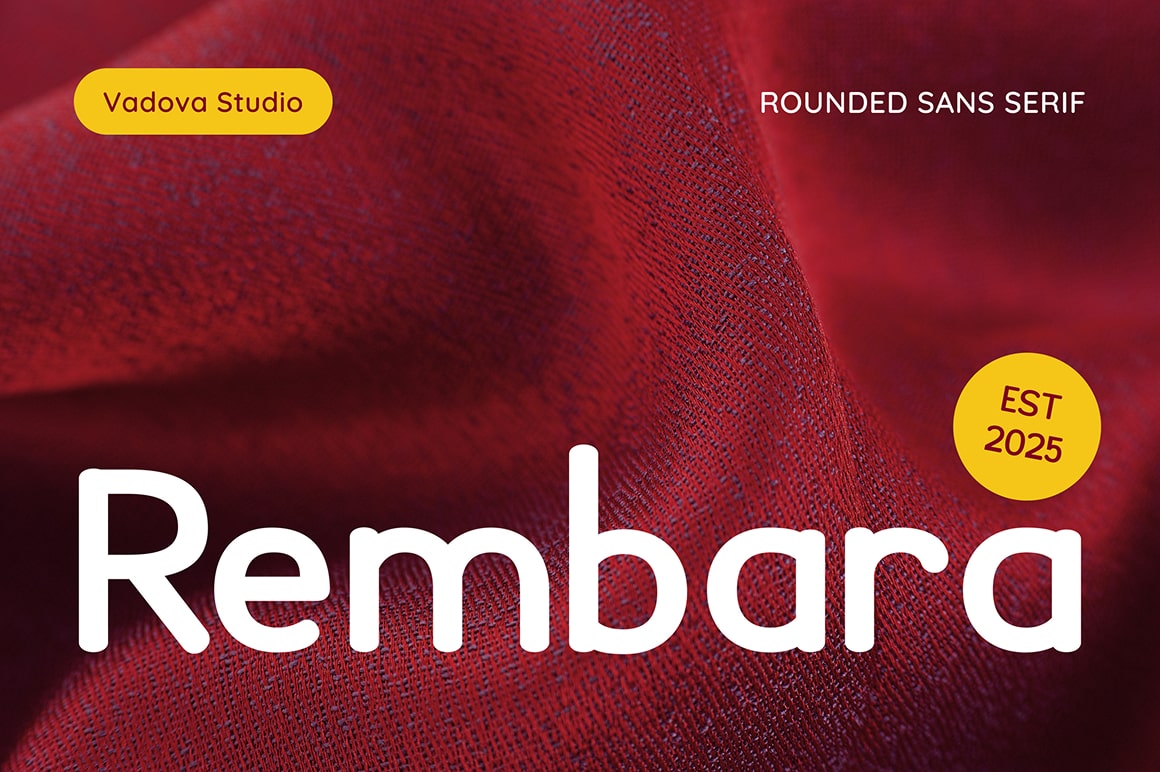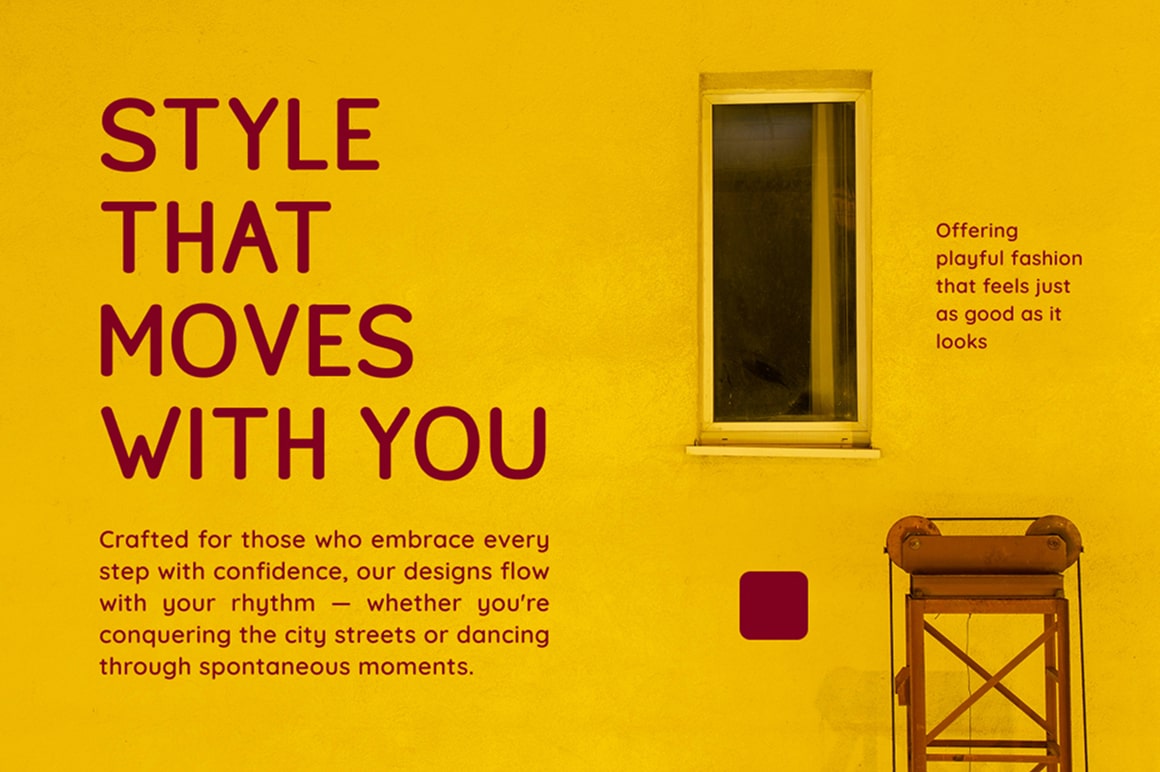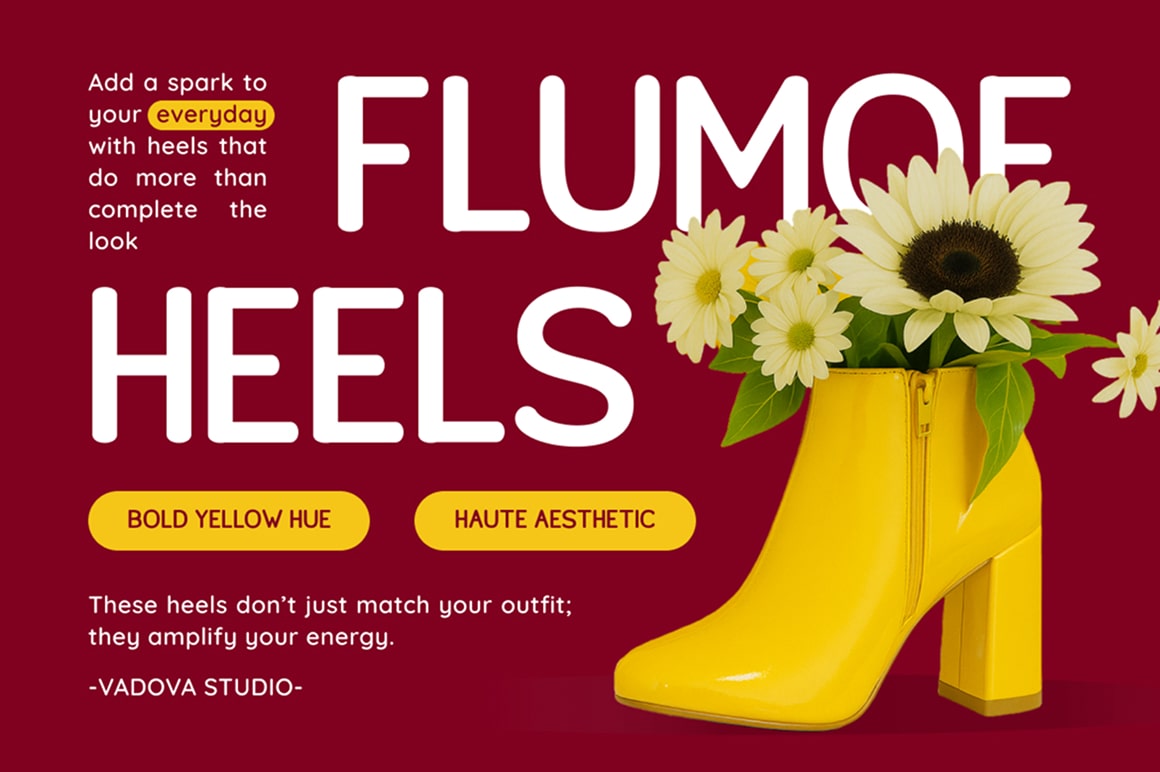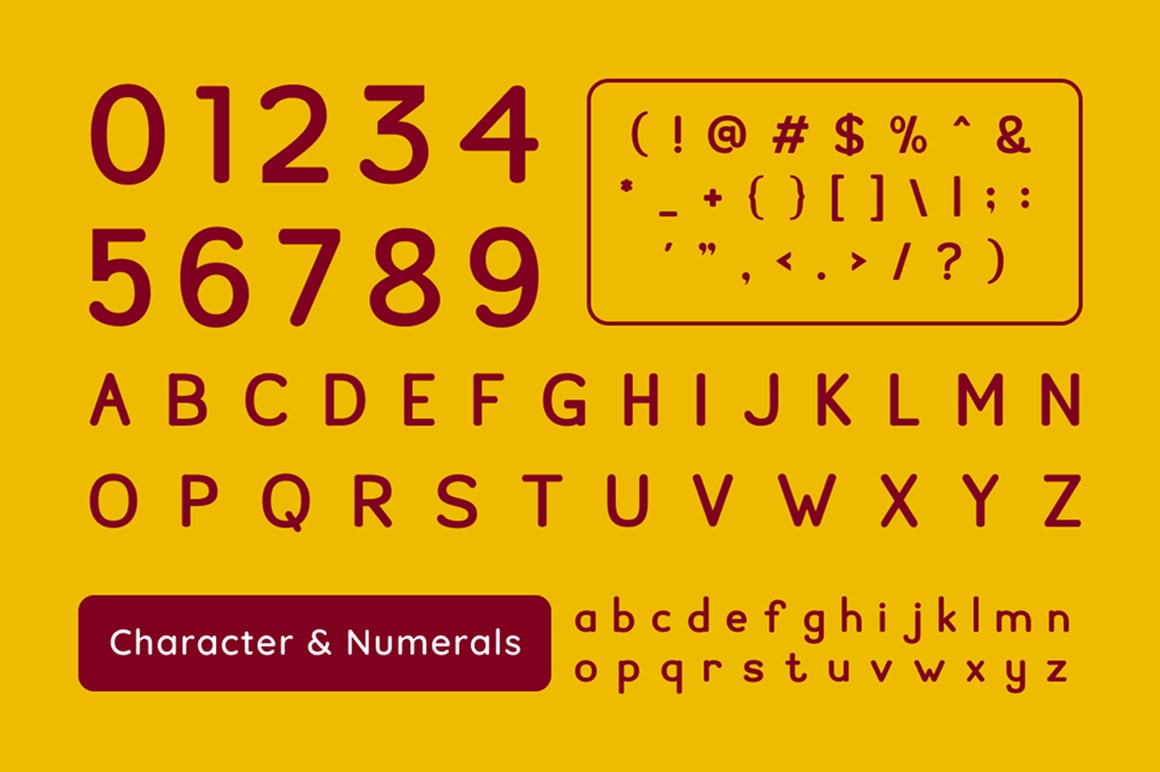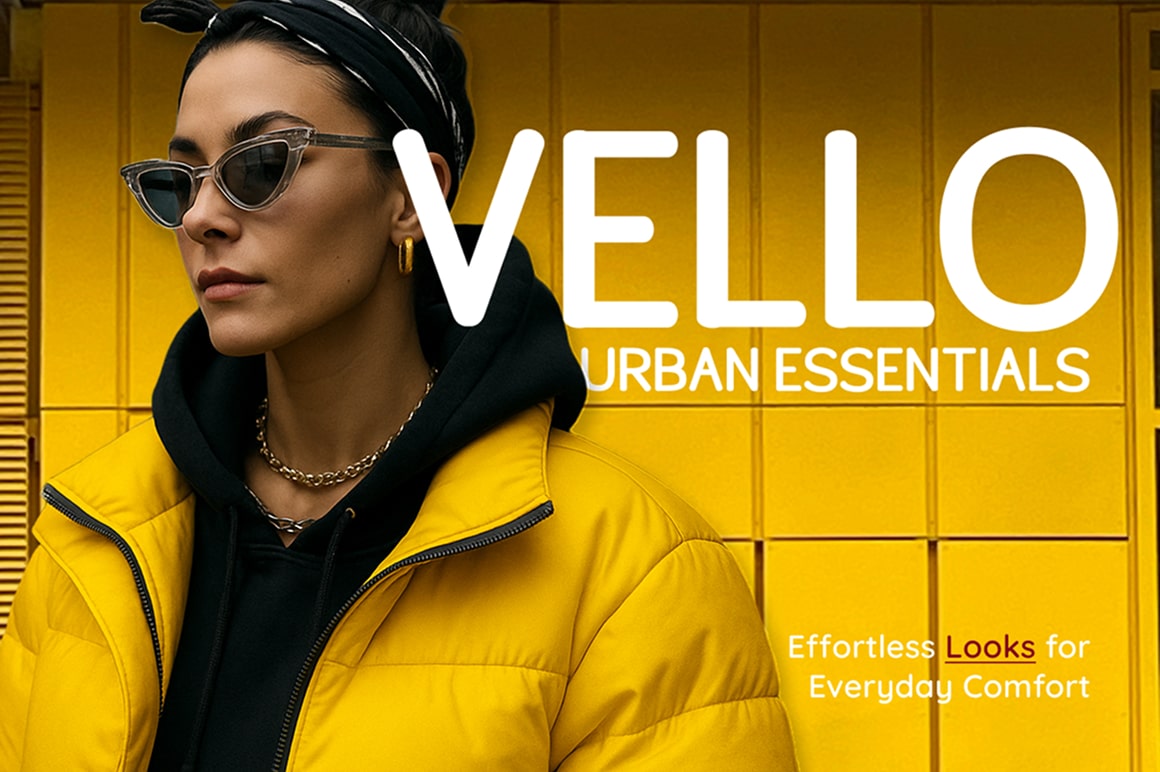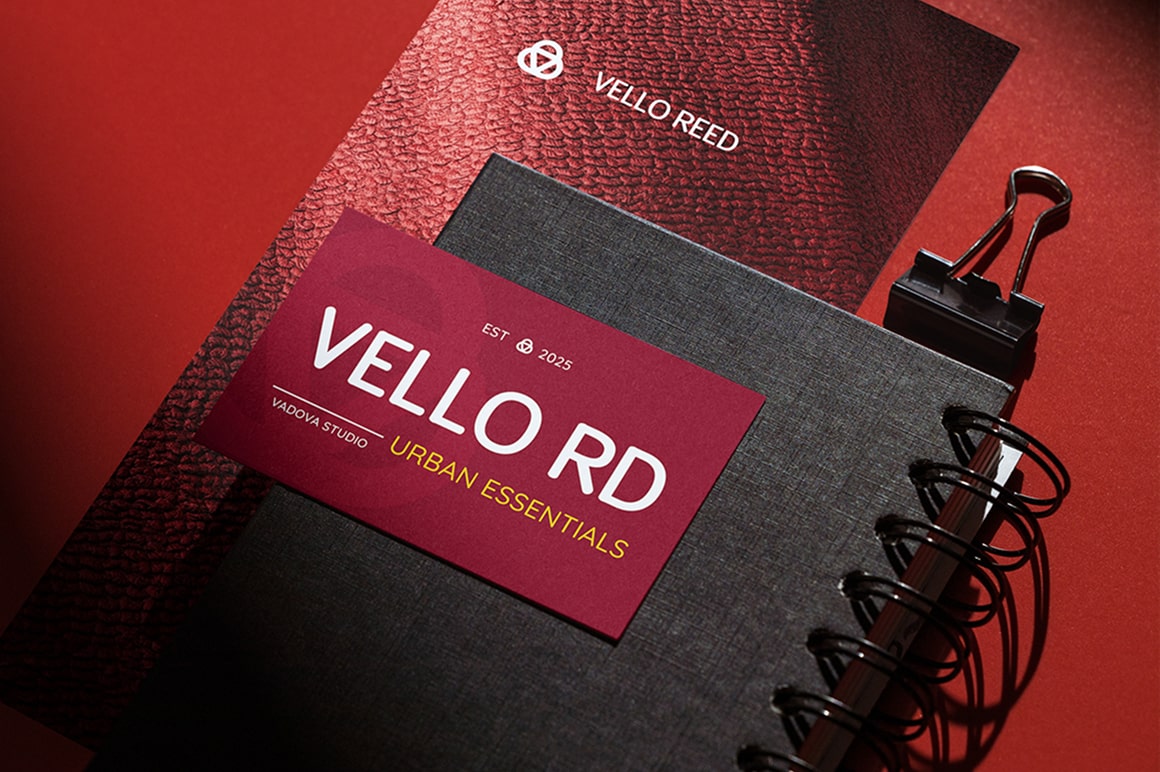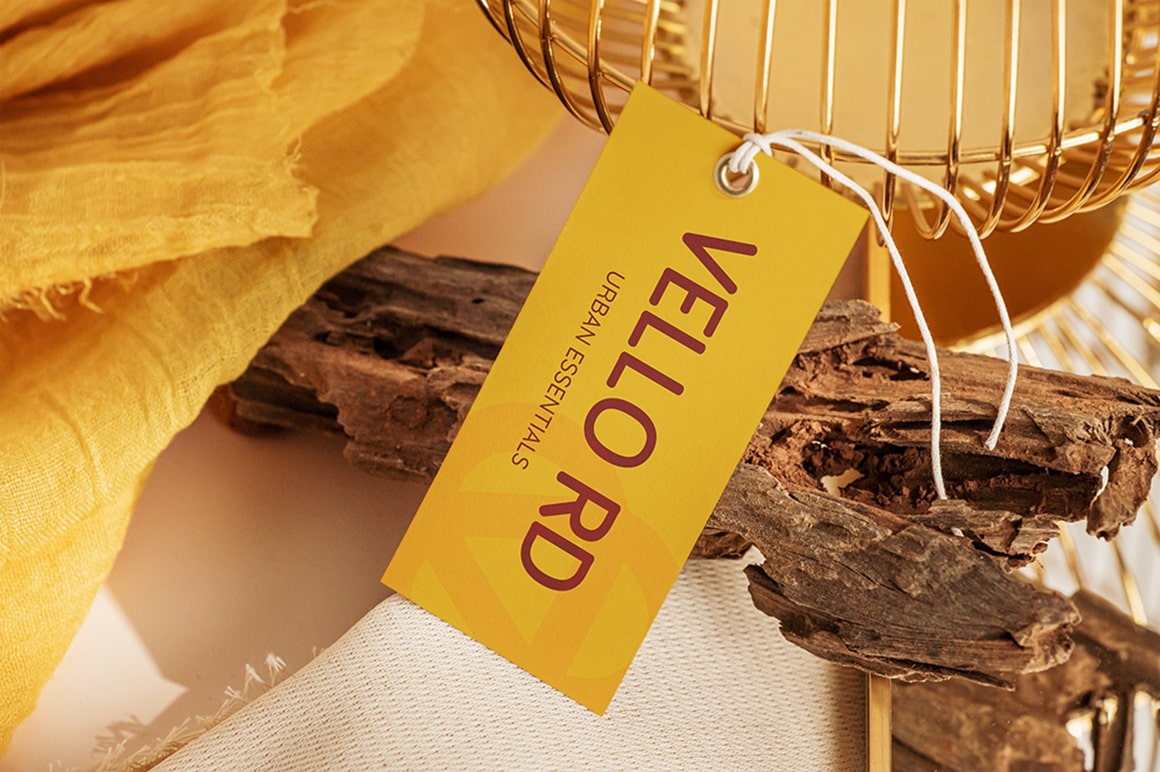
Rembara is a rounded sans serif font with a modern yet approachable feel. It exudes a warm and inviting personality, making it ideal for brands and creatives who want to appear both professional and personable. The letterforms are clean, balanced, and softly geometric, giving it strong legibility across sizes and formats. Style & Energy: Smooth, friendly, and softly confident – with a touch of playfulness. Market Vibe: Ideal for fashion brands, youth-targeted campaigns, Instagram graphics, lifestyle packaging, and editorial spreads.